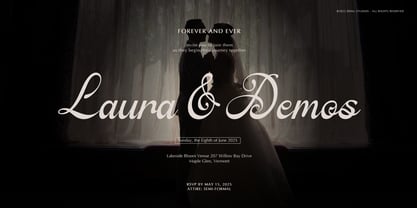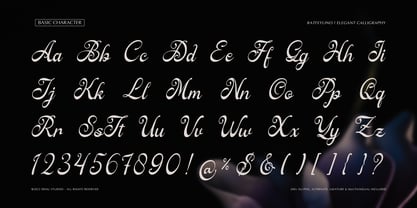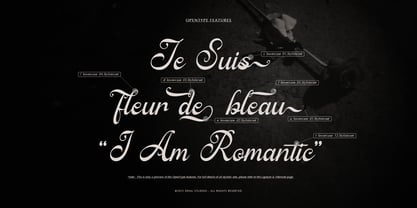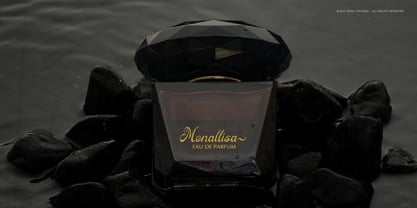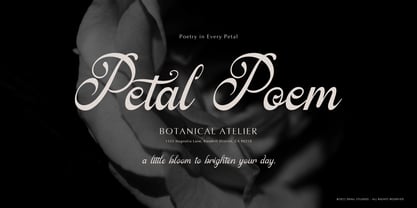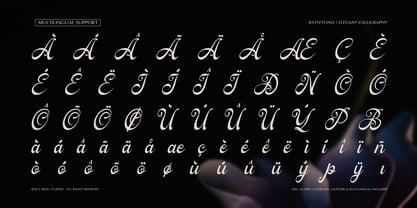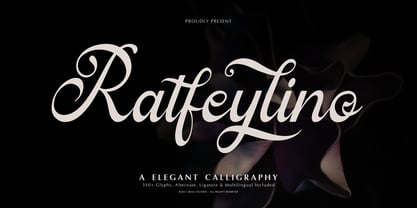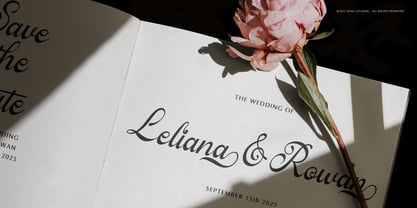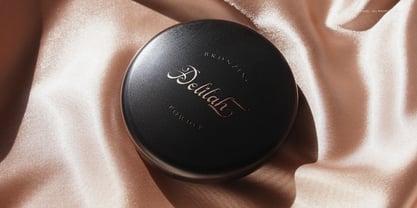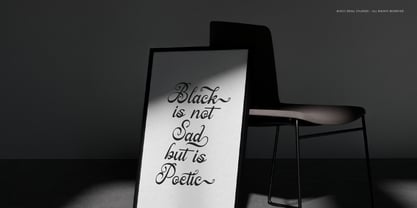
Ratfeylino
A família de fontes Ratfeylino foi desenhada por Dede Nugraha e publicada pela Denustudio. Ratfeylino contém 2 estilos e opções de pacote familiar. Saiba mais sobre esta família
Ratfeylino | Elegant Calligraphy, from Denustudios, suitable for any projects such as: logos, branding projects, homeware designs, product packaging, mugs, quotes, posters, shopping bags, t-shirts, book covers, name card, invitation cards, greeting cards, label, photography, watermark, special events, and all your other lovely projects that need Elegant Calligraphy a taste.
• Regular and Italic
• Standard glyphs
• Alternate and Ligature
• Fonts include multilingual support